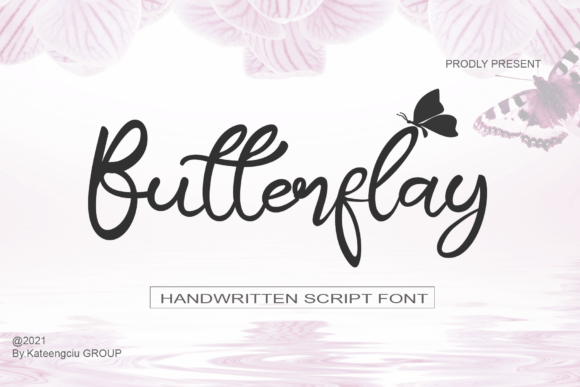
Enter the Butterflay Font, a cool, simple, and playful handwritten font that adds a touch of whimsy to any design. With its versatility and uniqueness, it’s the perfect addition to a wide range of projects, from posters and flyers to social media graphics and more. For designers, the Butterflay Font is a valuable tool that can breathe new life into even the most mundane designs.
Butterfly Font Key Features
- Character Set: The font includes a comprehensive set of characters, including uppercase and lowercase letters, numbers, punctuation marks, and special characters, covering multiple languages.
- Unique Characteristics: The font features a unique blend of whimsical and elegant elements, with intricate details and flourishes that add a touch of sophistication to any design.
- Style Variations: The font is available in multiple styles, including Regular, Italic, Bold, and Bold Italic, offering designers a range of options to suit their creative needs.
Butterflay Font Review
Overall, I think the Butterflay Font is a beautiful and unique addition to any design project. ✨ The intricate, hand-drawn style and subtle texture add a lot of character to the font.
- ✨ The variety of weights and styles available, making it easy to find the perfect fit for your design needs.
- ✨ The font’s versatility, suitable for both digital and print applications.
- ✨ The unique, whimsical feel that sets it apart from more common fonts.
- ⚠️ The font may not be suitable for very small text sizes, as the intricate details can become difficult to read.
- ⚠️ The font’s texture can sometimes clash with other design elements, so be sure to test it carefully in your design.
Overall, I think the Butterflay Font is a great choice for designers looking to add some personality to their projects. With its unique style and versatility, it’s a great option to consider. Just be sure to use it thoughtfully and consider its limitations.
Butterflay Font: A Practical Application Guide
Tips for Getting the Most Out of Butterflay Font
To get the most out of the Butterflay font, experiment with different font sizes, colors, and styles to achieve a unique look. Use the font in combination with other design elements to create a visually appealing design.
The Butterflay font is ideal for creative and artistic projects, such as invitations, posters, and social media graphics. It’s also suitable for use in branding and marketing materials, such as logos and business cards.
Alternatives to Butterflay Font
Pacifico is a beautiful, elegant script font that is perfect for creating a luxurious and sophisticated look. It’s ideal for use in invitations, weddings, and other high-end events. Pacifico is a great alternative to Butterflay Font as it offers a similar elegant and refined feel, but with a more classic and timeless look.
Great Vibes is a modern and stylish script font that is perfect for creating a fun and energetic look. It’s ideal for use in advertising, branding, and other marketing materials. Great Vibes is a great alternative to Butterflay Font as it offers a similar playful and youthful feel, but with a more modern and edgy look.
Yes, Butterflay Font supports Unicode characters, including languages such as English, Spanish, French, German, Italian, Portuguese, and many more. It also includes a wide range of symbols, emojis, and special characters.